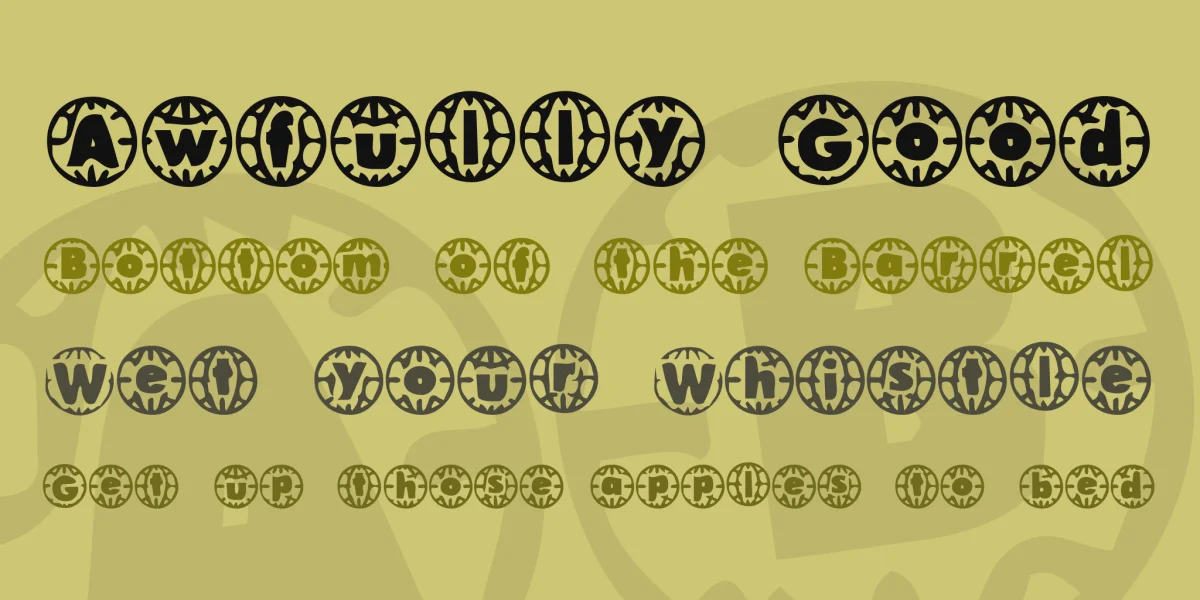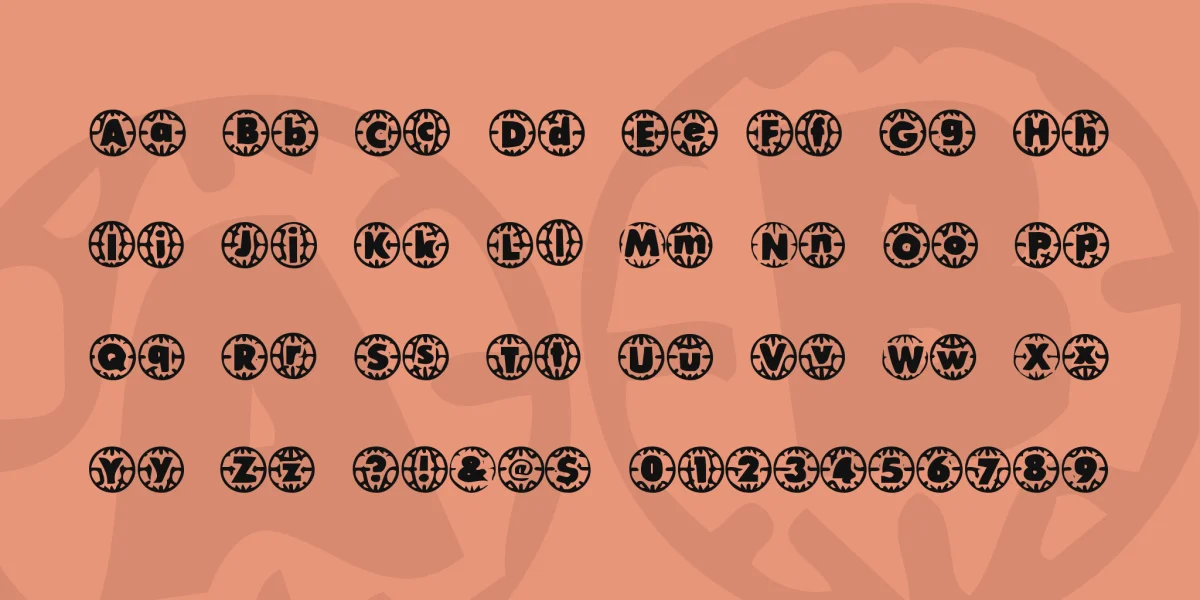
I made this font because I needed something that kind of had a 1950's Summer Safari theme. I may not have captured it too well, but it served its purpose for me. Now you can have it.